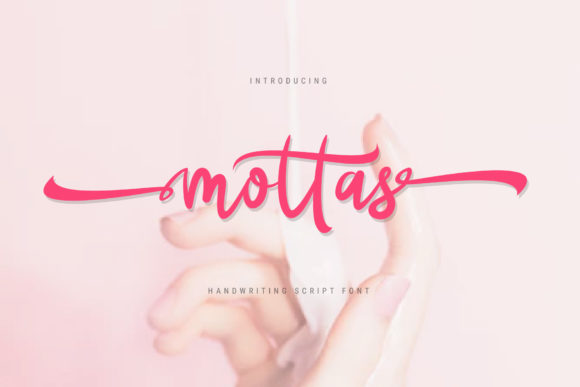
Are you craving a font that flawlessly blends a touch of elegance with an air of whimsy? Look no further than Mottas Script, a captivating creation by WDfont Creative. This exquisite script font boasts an authentic handwritten style, lending a personal touch to your every word.
Picture this: your designs adorned with Mottas Script's graceful curves and playful flourishes. It's the perfect font to add a dash of charm and uniqueness to your projects. Whether you're crafting heartfelt letters, enchanting invitations, or eye-catching social media posts, Mottas Script will elevate your words with its captivating presence.
Immerse yourself in a world of endless possibilities with Mottas Script. Its versatility knows no bounds, gracefully complementing an array of design aesthetics. From whimsical wedding stationery to sleek brand logos, Mottas Script effortlessly adapts to your creative vision.
Don't settle for ordinary fonts. Embrace the extraordinary with Mottas Script. Let your imagination soar as you witness the transformative power of this enchanting font. Its intricate details and timeless beauty will leave an unforgettable mark on your designs.